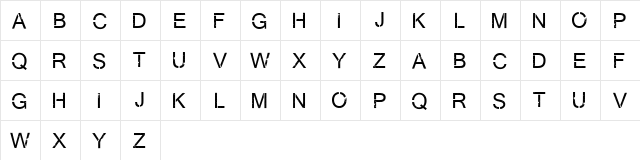
Virtual Bliss Regular Font Preview
Virtual Bliss Regular
Virtual Bliss Regular Font Details
| Foundry | GKDN web and social imaging |
| Designer | Chris Vile |
Design Context for Virtual Bliss Typeface
Virtual Bliss offers clean, dependable letterforms without strong stylistic allegiance, making it a practical choice for designers who need flexibility.
Pro Tip: Use Virtual Bliss in both headline and body roles to test its range before committing to a single application.